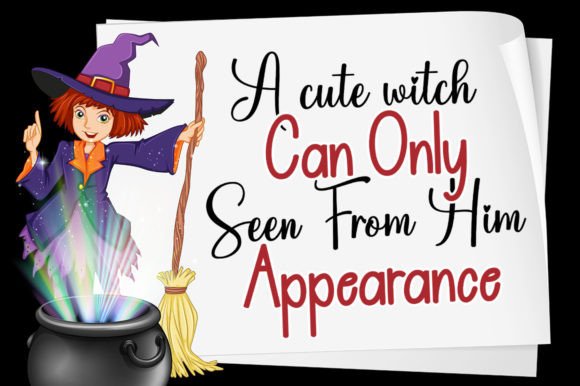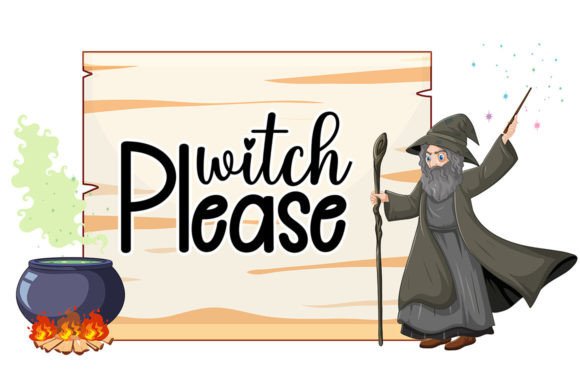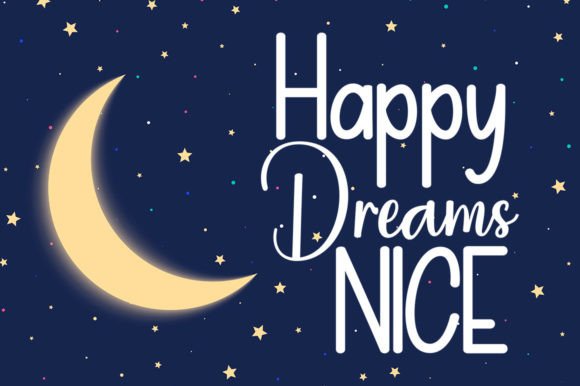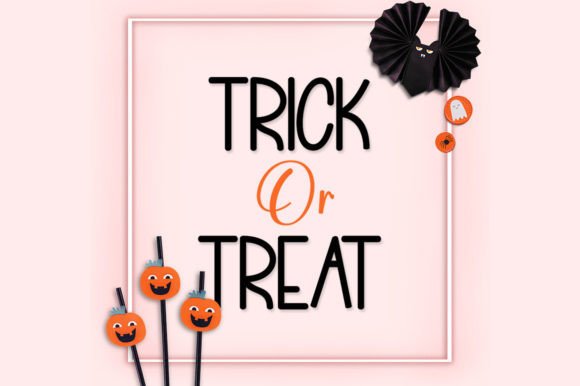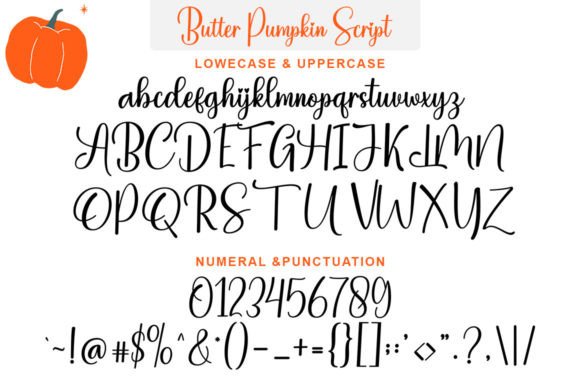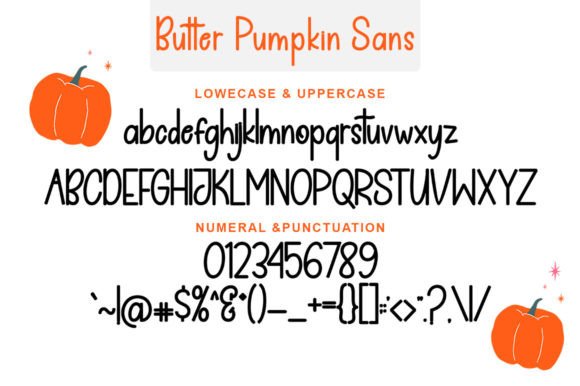
About Butter Pumpkin Duo Font
Introducing “Butter Pumpkin” – Your Playful Handwritten Font Duo for Autumnal Bliss!
“Butter Pumpkin” isn’t just a font; it’s a delightful duo that includes both a playful script and a charming sans-serif style. This dynamic combination is perfect for adding a touch of autumnal magic to all your creative projects, and you’re bound to fall in love with the results!
With “Butter Pumpkin,” you get the best of both worlds. The script font exudes a fun and whimsical vibe, while the sans-serif offers a clean and modern contrast. This versatility allows you to explore a wide range of creative possibilities, making it ideal for any autumn-inspired design.
Imagine using “Butter Pumpkin” to craft cozy fall-themed invitations, design playful seasonal posters, create eye-catching social media graphics, or even to give your branding a warm and inviting twist. This font duo brings the spirit of autumn to life in all your projects.
Whether you’re an experienced designer or simply looking to add a touch of seasonal charm to your work, “Butter Pumpkin” is your go-to choice. It’s the perfect way to infuse your designs with the playful and cozy atmosphere of autumn.